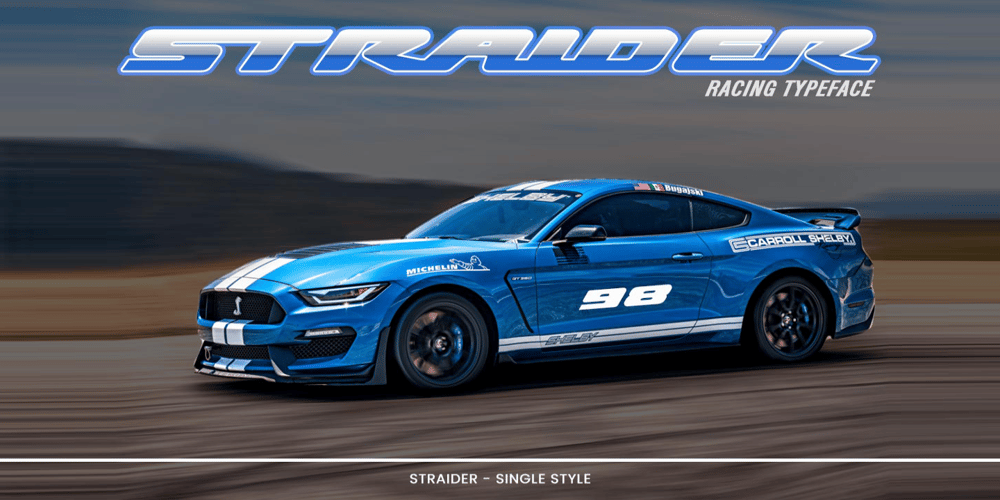
Straider Font Family was designed by Hajid Hikmatiyar and published by Hikhcreative. Straider contains 1 styles and family package options. Specialized for the “speed typeface” and “adrenaline seeker” soul, we got you packed up. A nitro boost for your visual needs. Please welcome, STRAIDER. The racing typeface.Inspired by the mid era of vintage and modern automotive visual branding. We build the bold and strong font with total aim to the speed, cars, vehicles, and automotive vibes. Will be a perfect match for the automotive events, branding, logo, cars and motorcycle posters, advertising, anytime you want some more “speed” in your visual project.FEATURES :Uppercase & Lowercase lettersNumbers & PunctuationLigaturesMultilanguage SupportThank you.